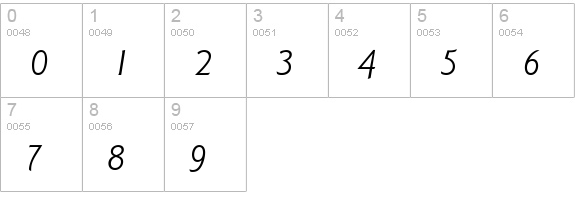
GoudySansEF-BookItalic font effortlessly combines elegance and modernity with its sleek and stylish design. The italicized version of this font exudes a sense of sophistication and refinement, making it perfect for adding a touch of class to any project. The slanted characters flow smoothly, creating a dynamic and engaging visual appearance. The GoudySansEF-BookItalic font is versatile and can be used for a wide range of design projects, from invitations to advertisements to branding materials. Its readability and distinct personality make it an excellent choice for conveying a sense of creativity and professionalism. Best of all, GoudySansEF-BookItalic font is completely free to download at FontsMarket.com. This means that you can easily access this high-quality font without any cost, making it a valuable resource for designers and creatives looking to elevate their work. Don't miss out on the opportunity to enhance your projects with the timeless beauty of GoudySansEF-BookItalic font - download it today and bring your designs to life!